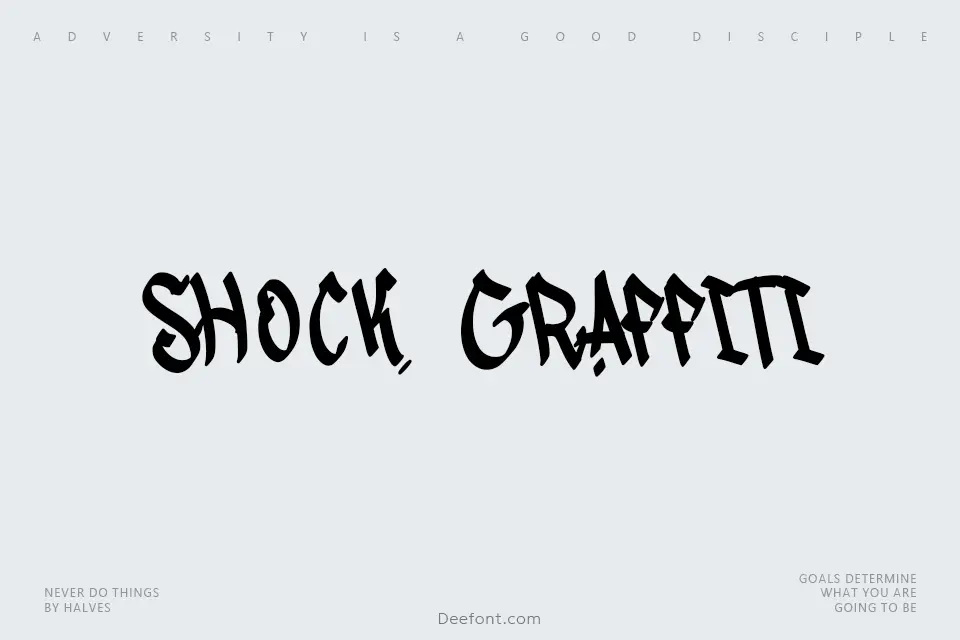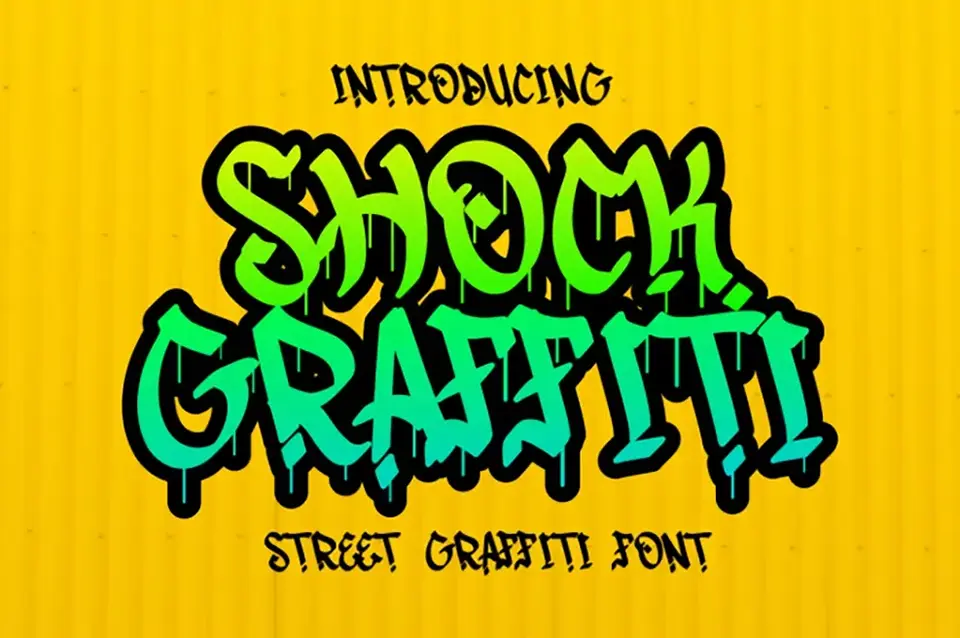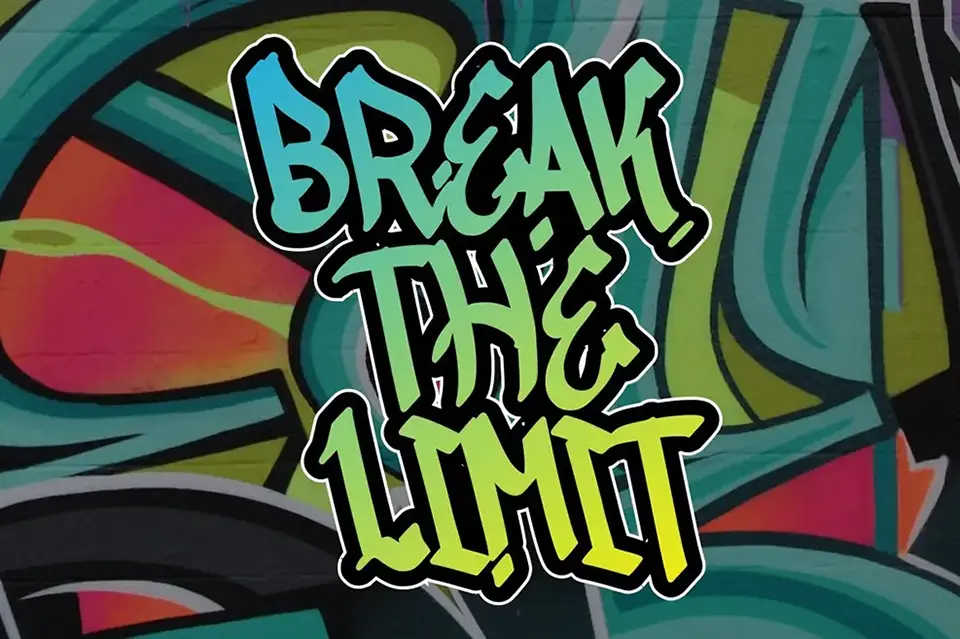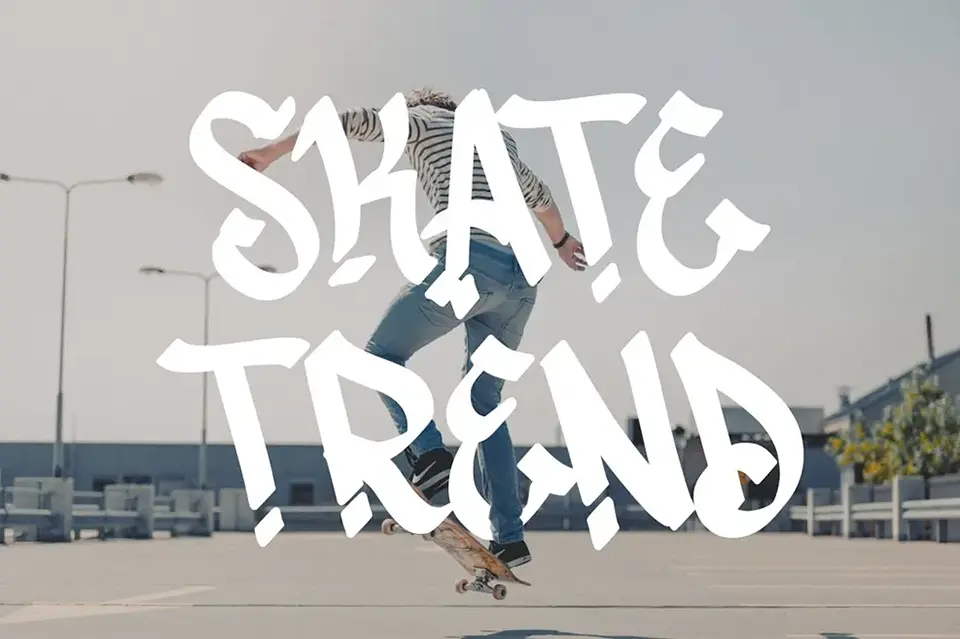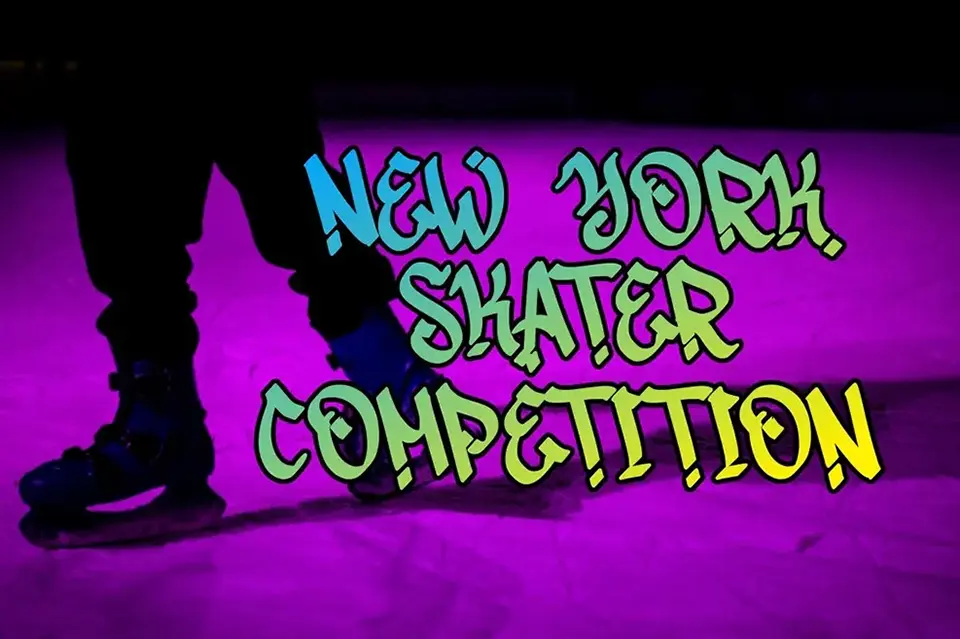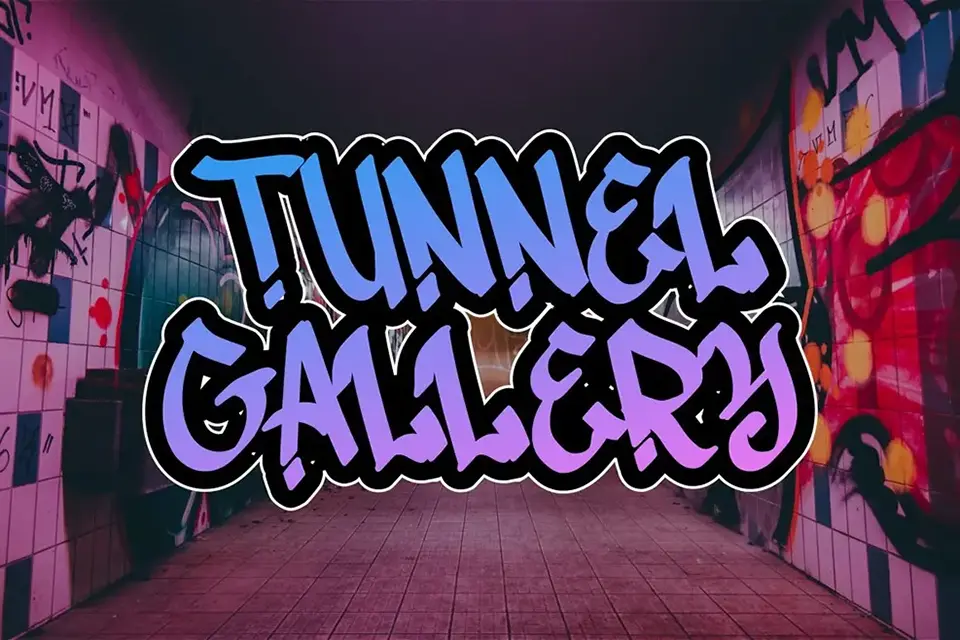
Shock Graffiti Font
Shock Graffiti is an edgy and expressive graffiti-inspired script font that captures the rebellious spirit of urban street art. Designed with sharp angles and dynamic strokes, this bold typeface features exaggerated curves and pointed edges that mimic spray-painted lettering. Perfect for creating impactful designs across posters, album covers, digital artwork, merchandise, and branding projects targeting a youthful, modern audience. With 212 carefully crafted characters including multilingual support, this font delivers an energetic and creative aesthetic ideal for streetwear, urban-themed compositions, and any project requiring distinctive visual impact and attitude.